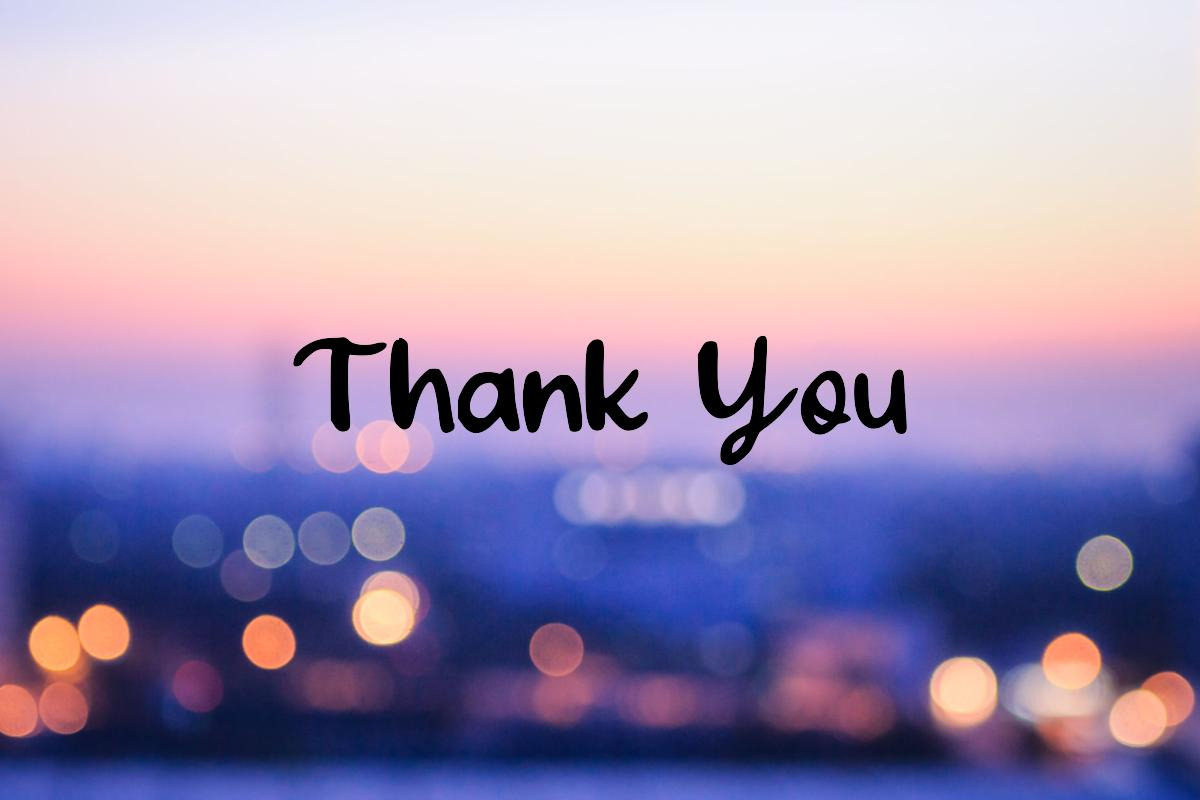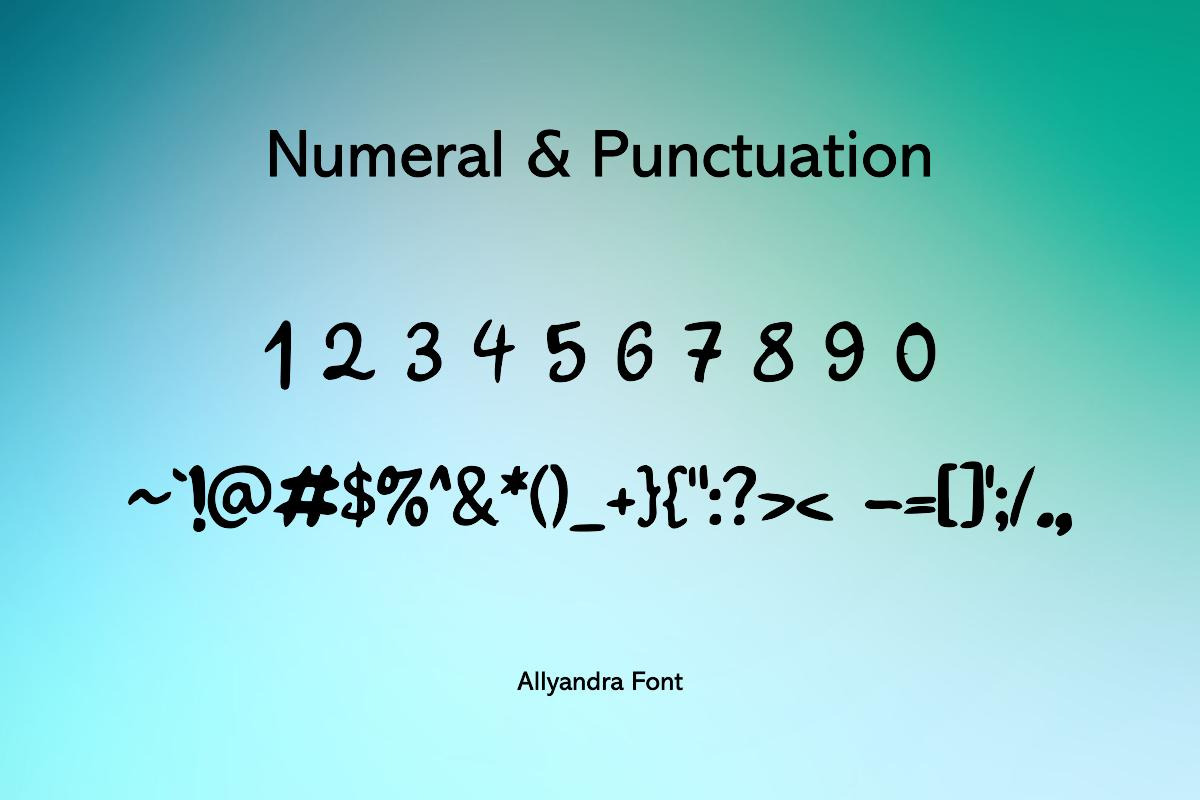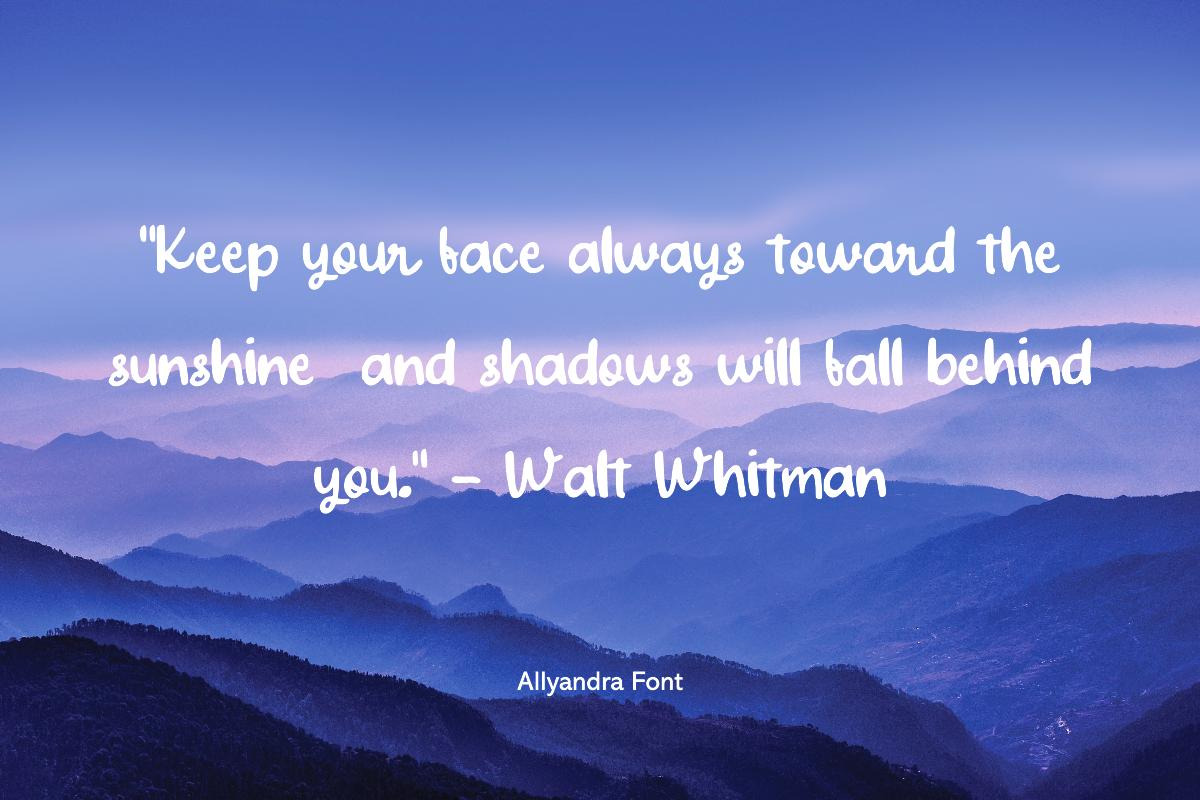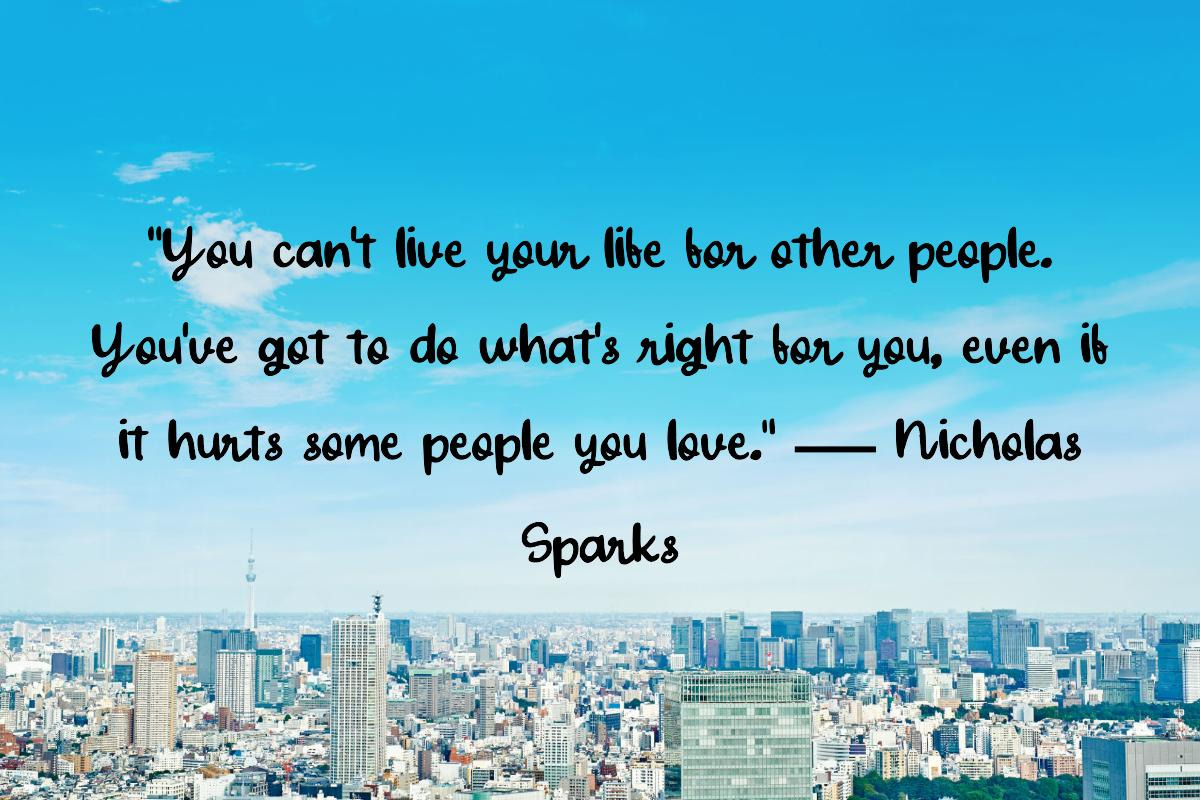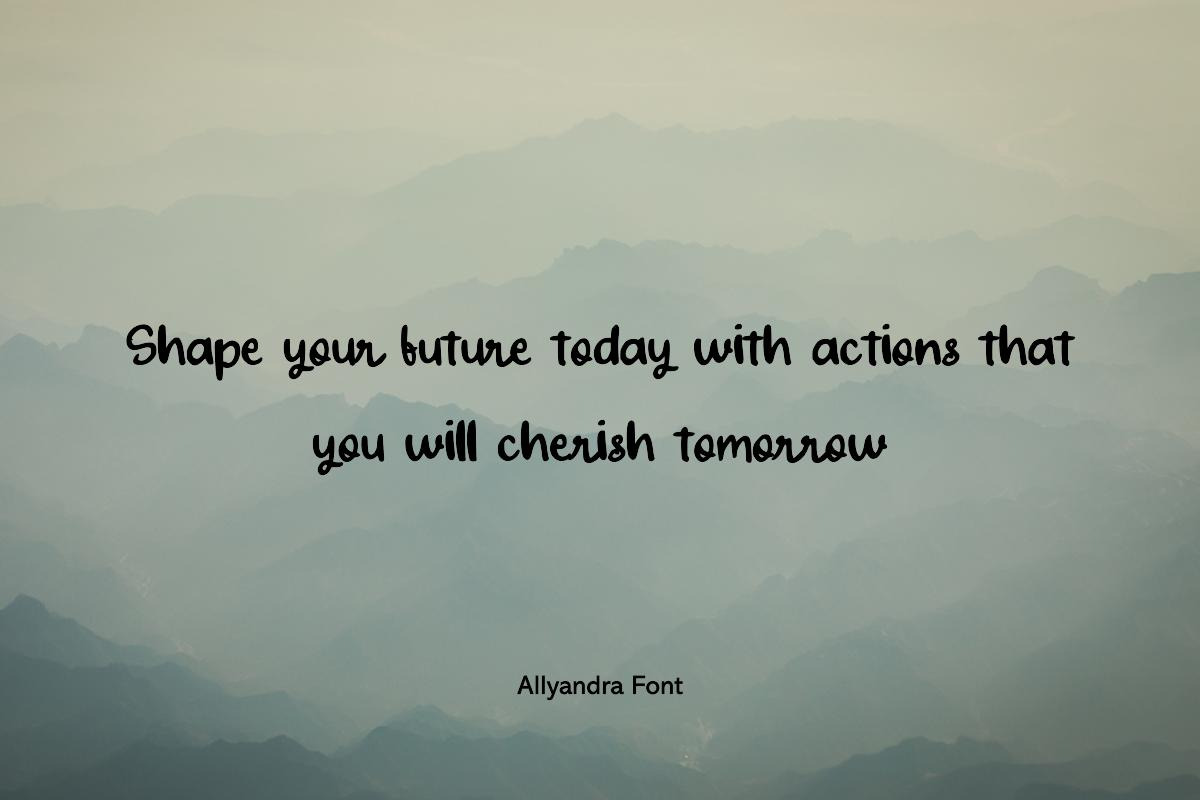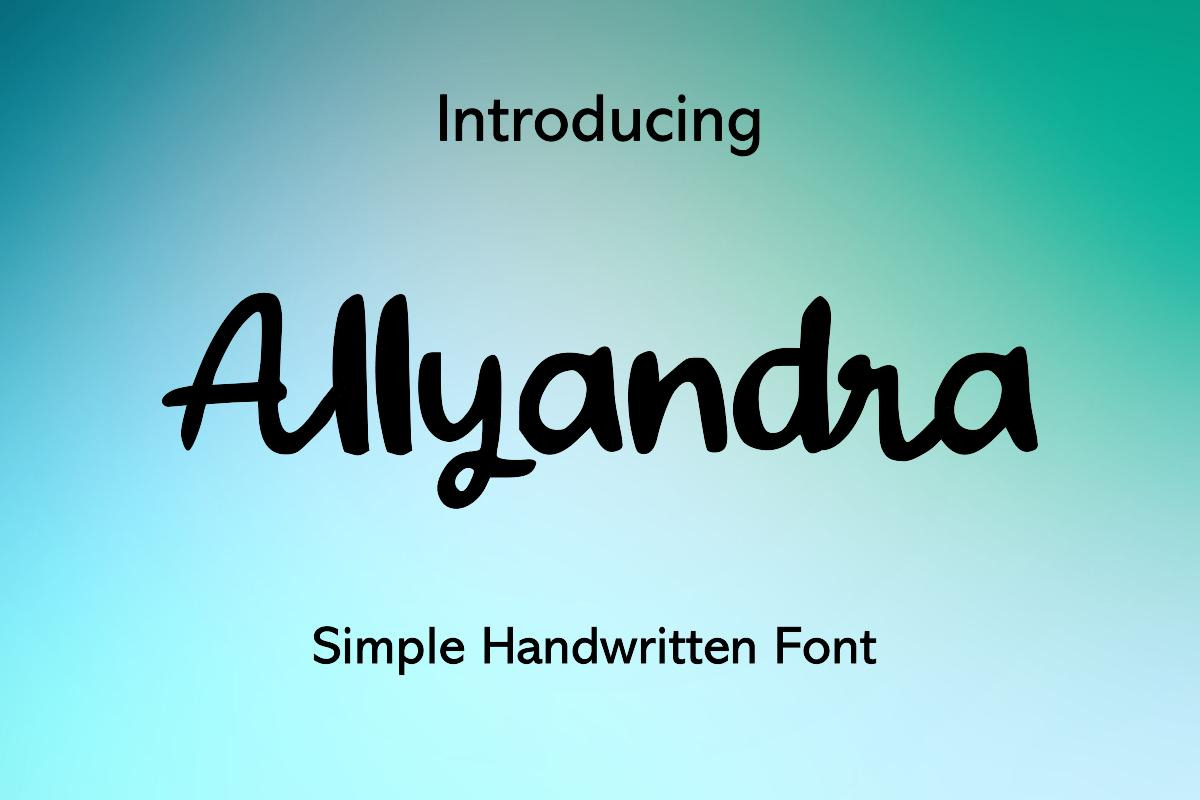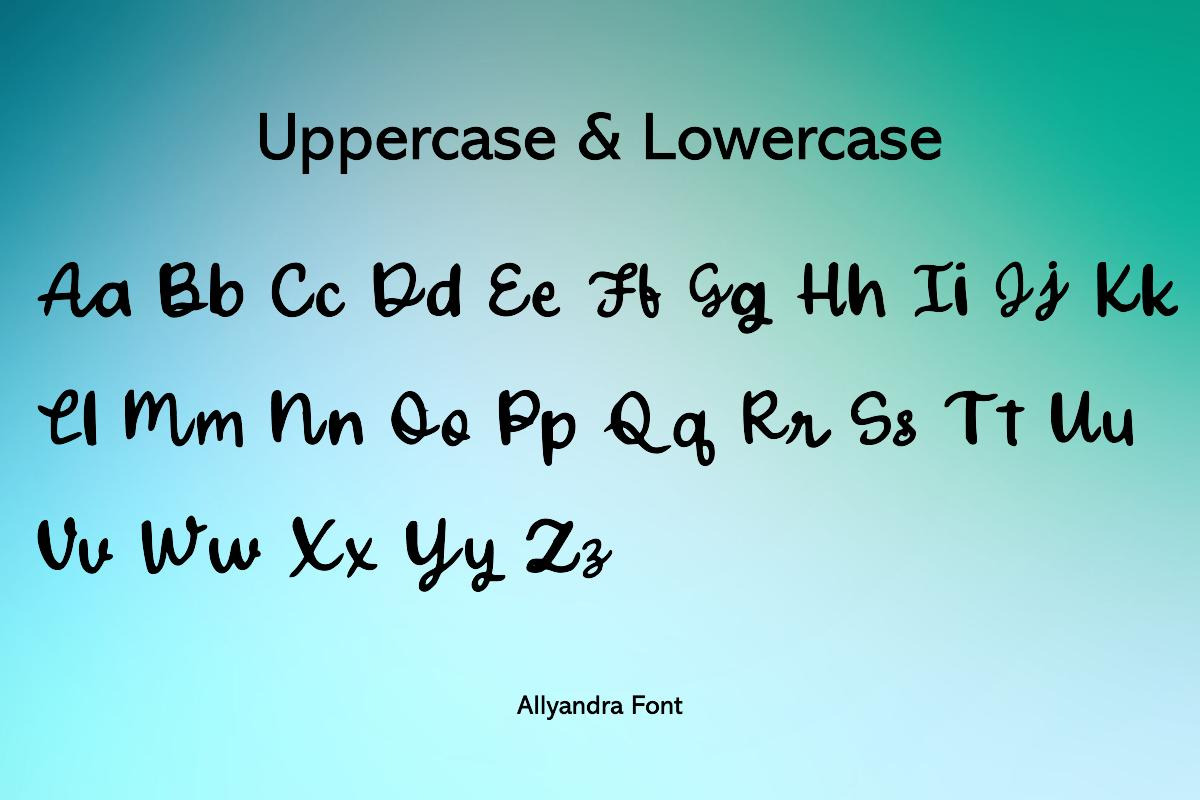
Allyandra Handwritten Font
Introducing Allyandra: A Handwritten Font
Discover the charm of Allyandra, a handwritten font that embodies elegance and character. Designed to capture the essence of personal handwriting, Allyandra is perfect for creating designs that require a human touch.
- Genuine Handwritten Aesthetics: Each glyph is carefully crafted to convey the authentic feel of handcrafted writing.
- Versatility: Whether it's for digital designs or print materials, Allyandra is suited for a variety of creative projects.
- Multilingual Support: Broaden your reach with a font that supports multiple languages and scripts.
Why Choose Allyandra?
- Distinctive Style: Make your work stand out with a font that adds a unique, personal flair.
- Quality Design: Painstakingly designed for a polished and professional appearance.
Elevate your creative projects with Allyandra—the handwritten font that makes every word count.